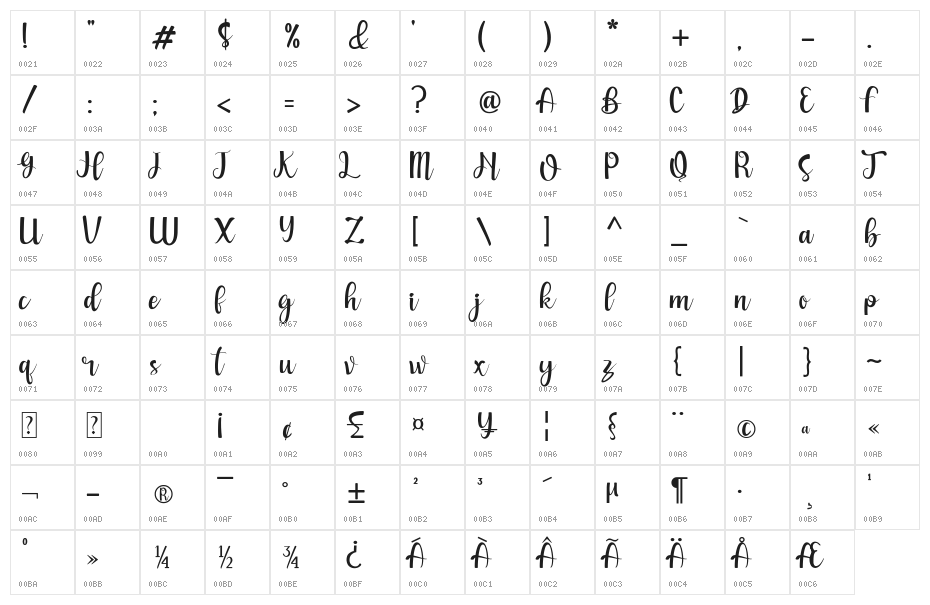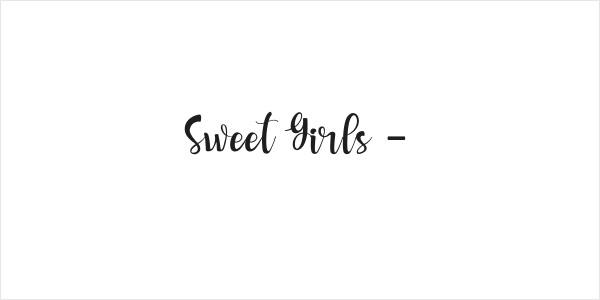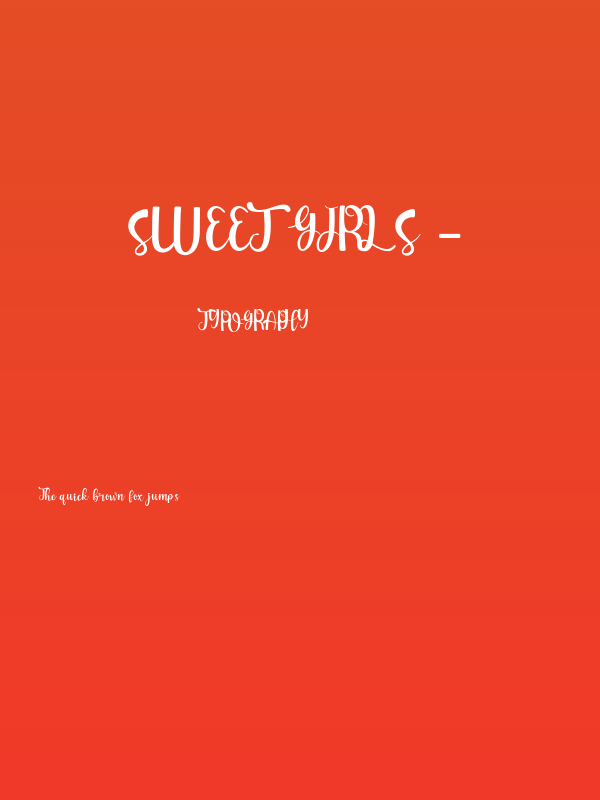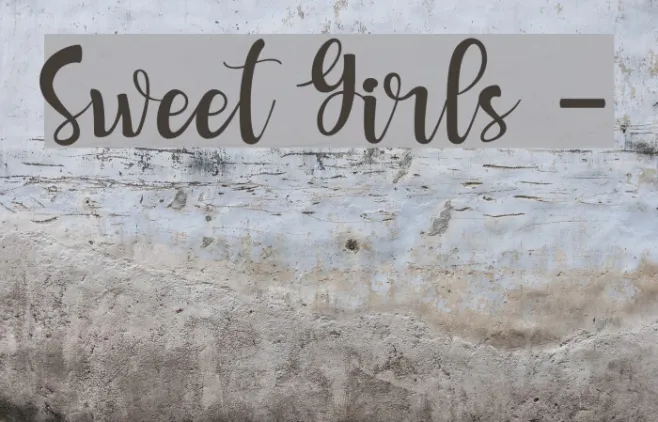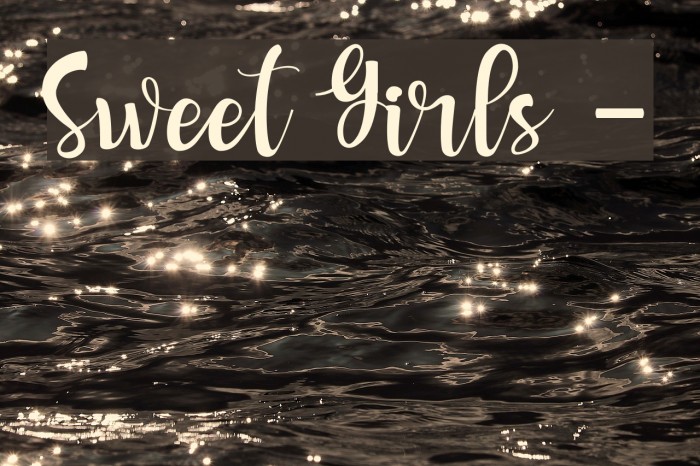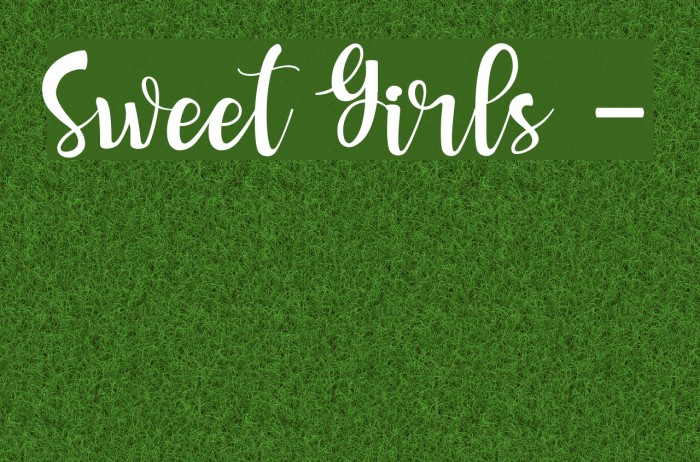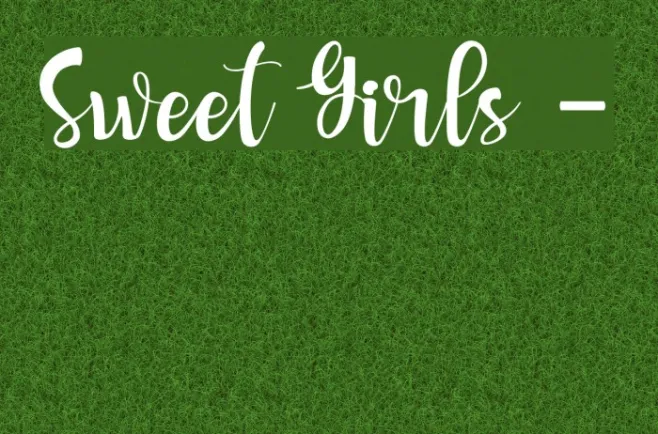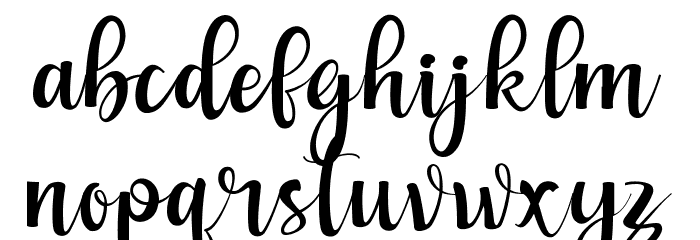
Sweet Girls - Font
Sweet Girls - Description
This font features a playful and elegant script style with flowing, interconnected letters. The uppercase characters are bold and ornate, with decorative swashes that add a touch of sophistication. The lowercase letters maintain a consistent flow, enhancing readability while retaining a whimsical charm. The numerals are styled to match the overall aesthetic, ensuring a cohesive look. Special characters are thoughtfully designed, complementing the font's artistic flair. This font's unique style makes it suitable for creative and expressive design projects.